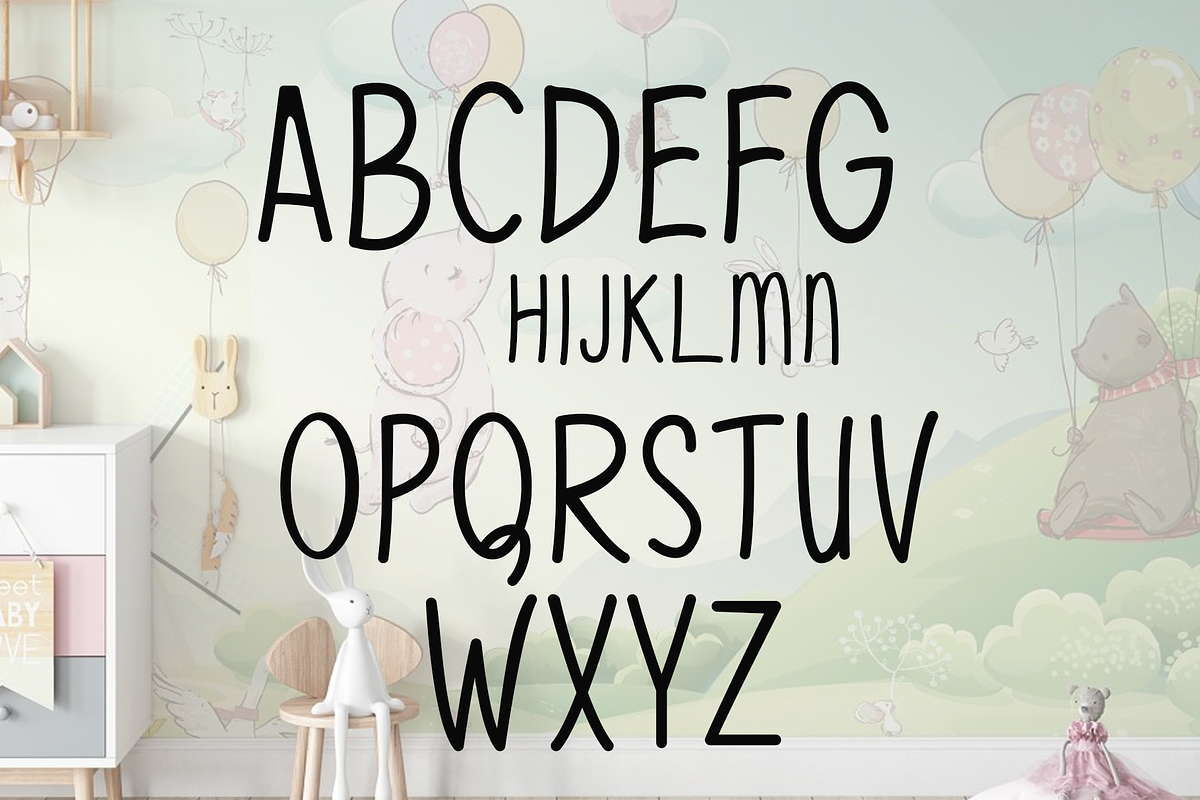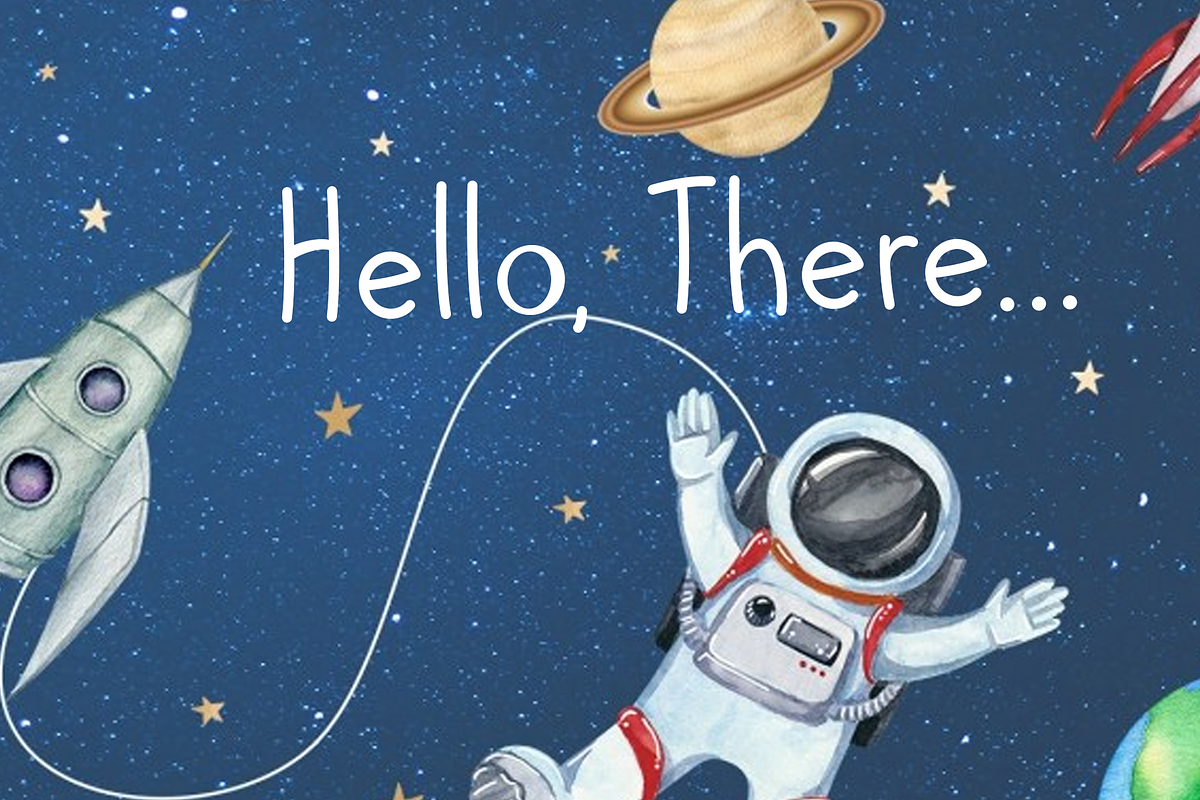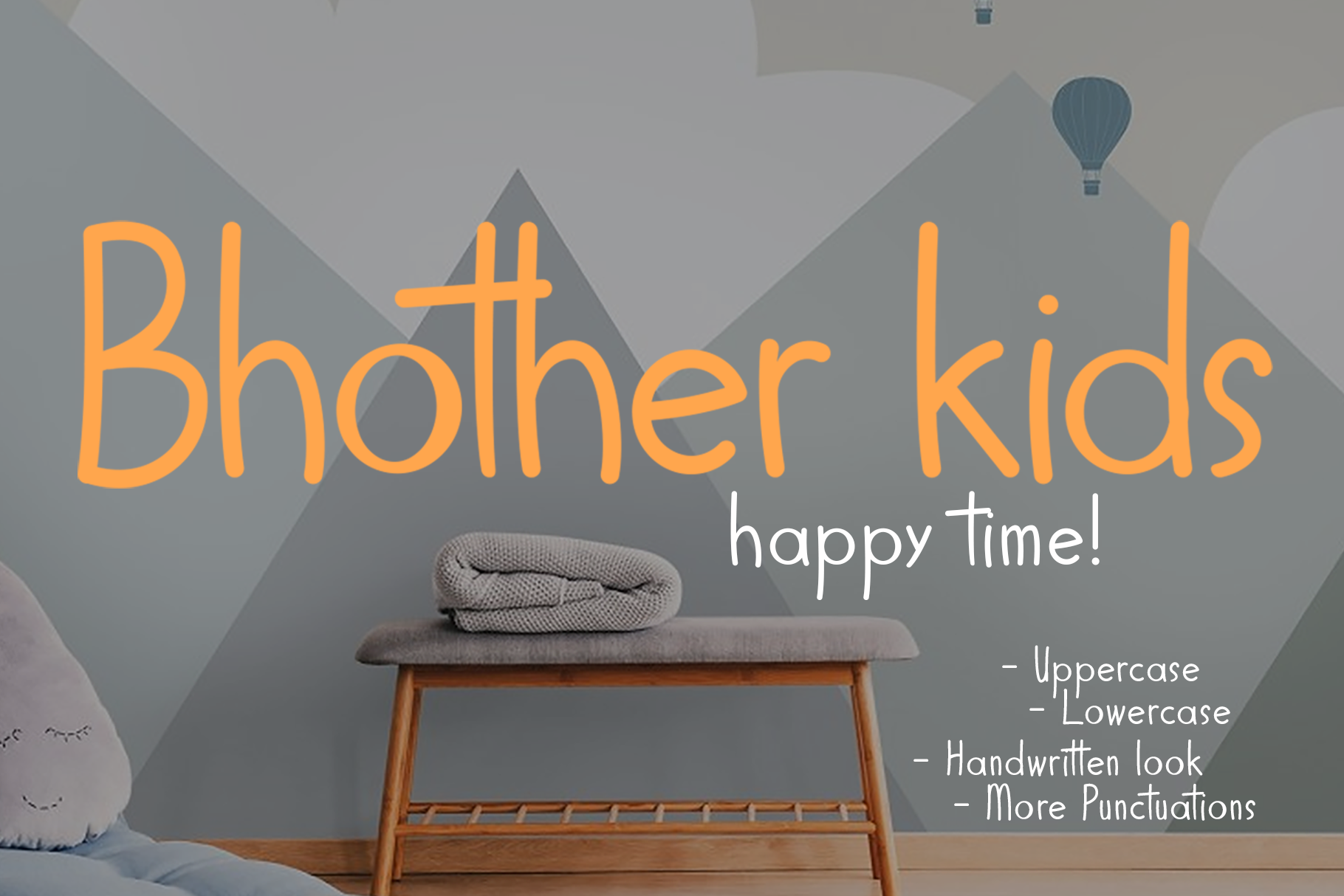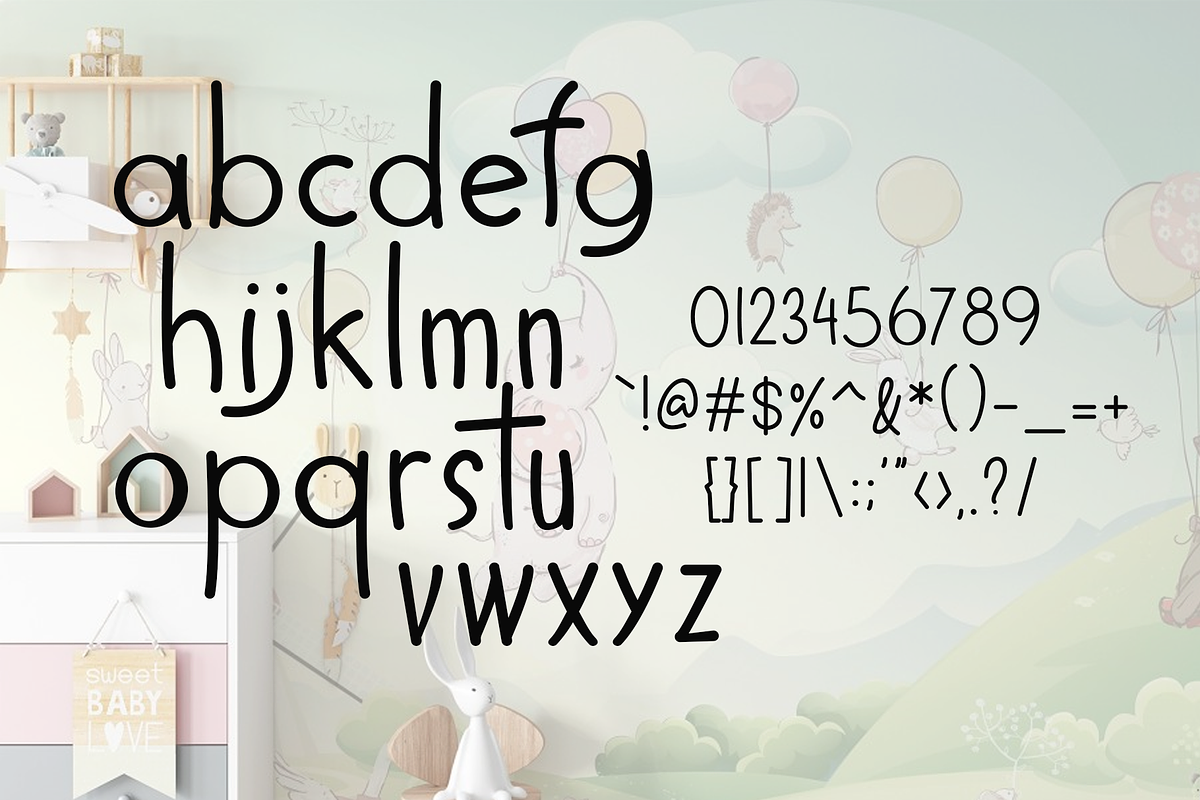
Bhother Kids- Handwritten Font
Introducing Bhother Kids, an simple, modern, and fun display font. Its unique and lovely feel. So perfect for you who needs a typeface for logo designs, magazine, social media, brochure, and many more.